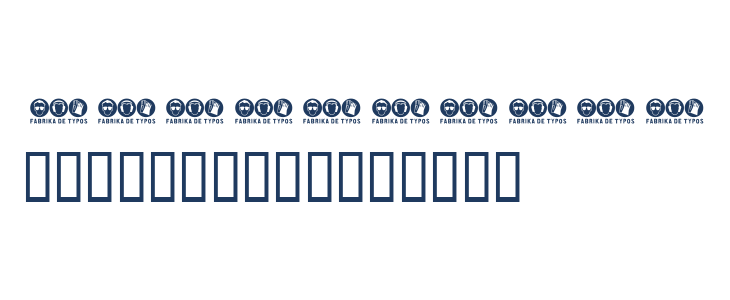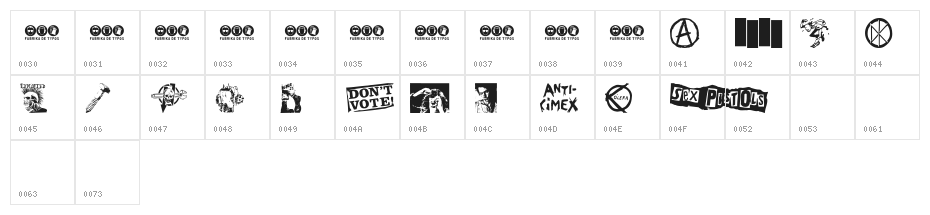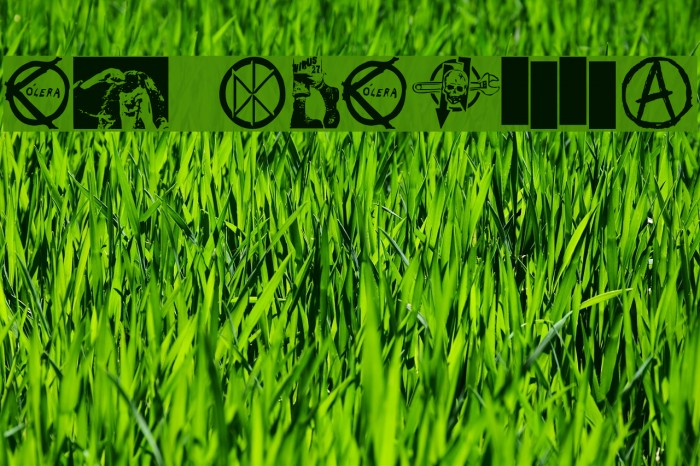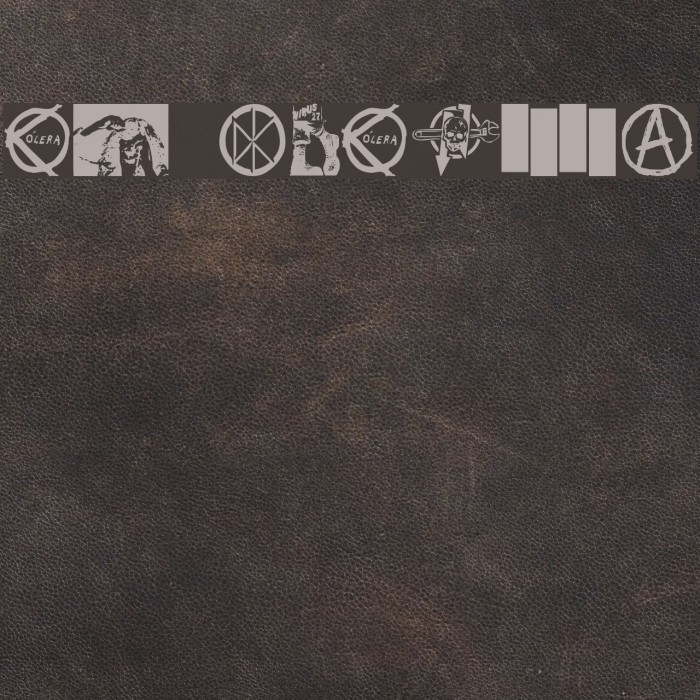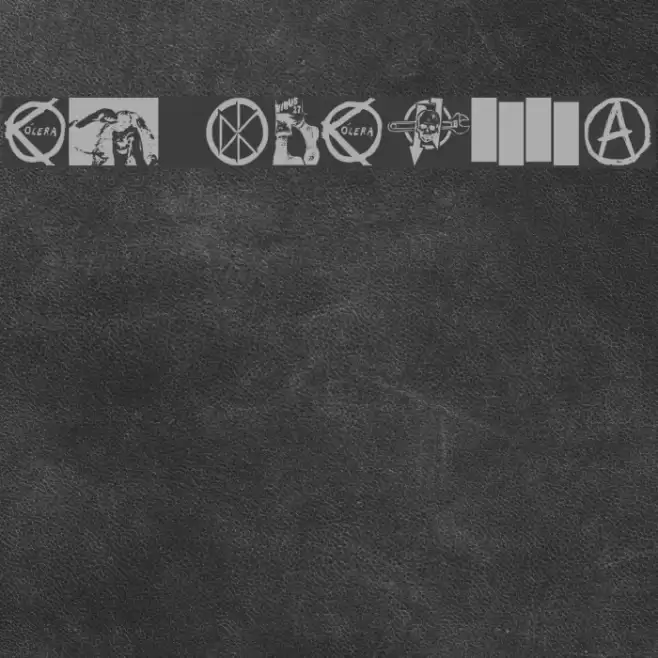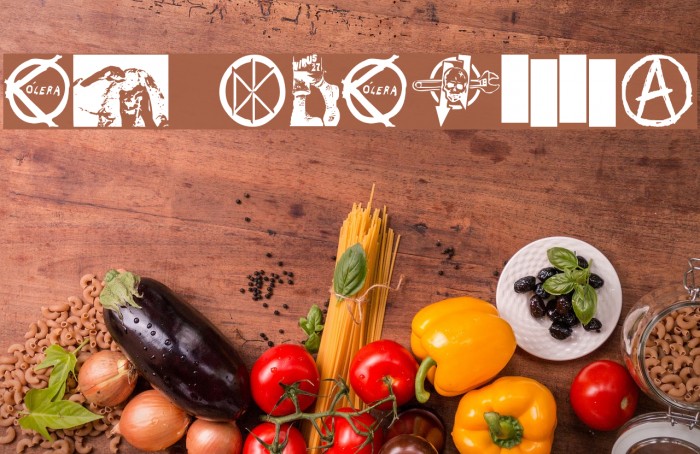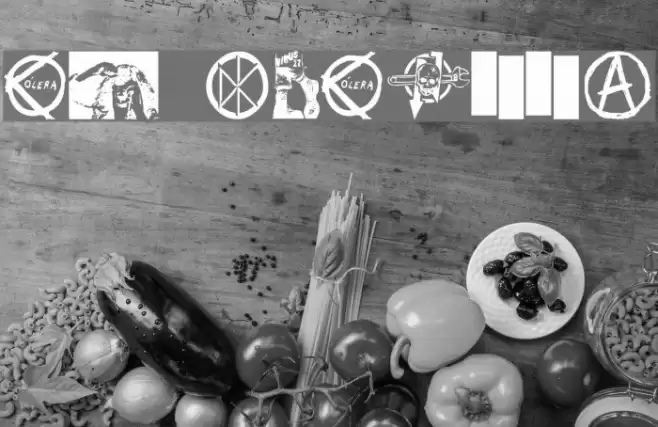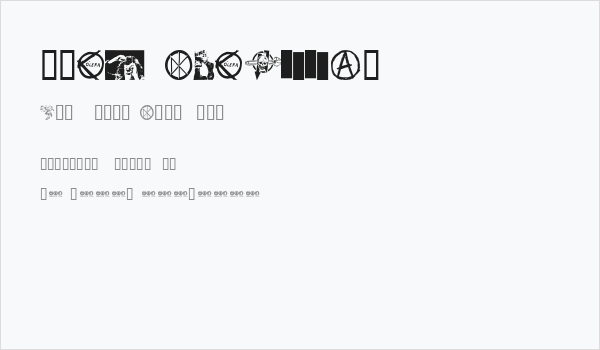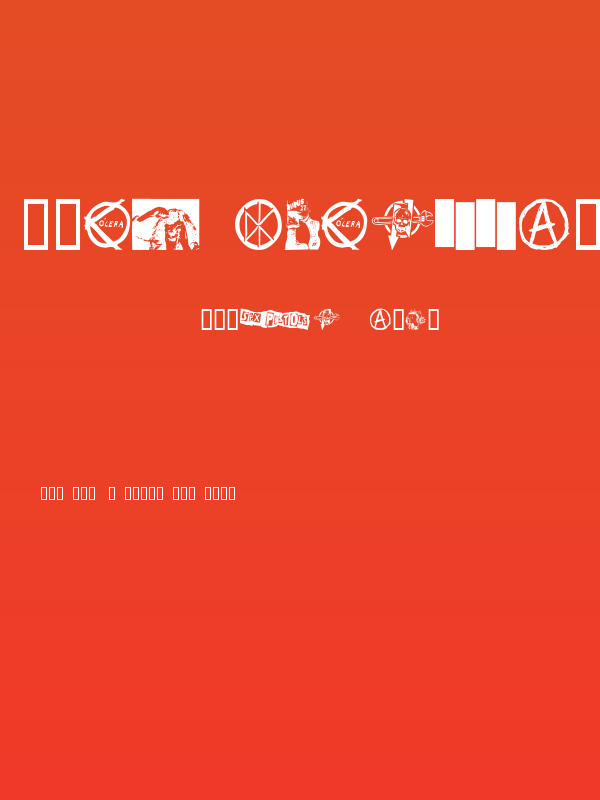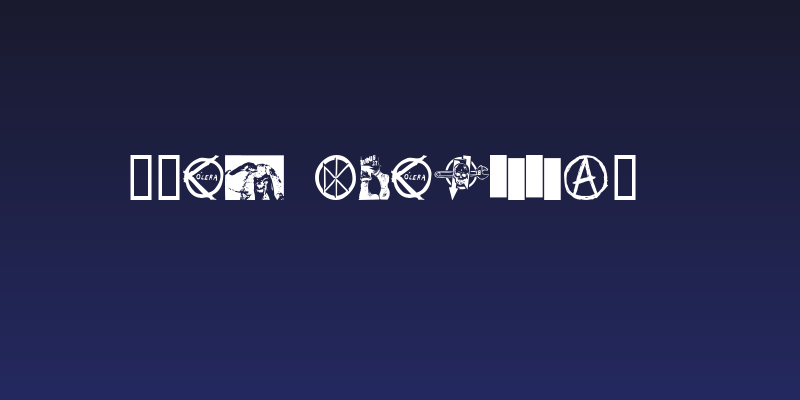
PUNK DINGBATS Font
PUNK DINGBATS Description
This collection of symbols and graphics embodies the rebellious and edgy spirit of punk culture. Featuring iconic imagery such as anarchy symbols, peace signs, and references to punk bands, it captures the raw and unpolished aesthetic typical of the punk movement. The designs are bold and striking, often using high contrast and rough, hand-drawn styles to convey a sense of urgency and defiance. These elements are perfect for projects that aim to evoke a sense of rebellion, counterculture, or alternative lifestyle.
| Use Case | Logos, Posters, Merchandise |
| Proposed Projects | Ideal for band posters, album covers, zines, and alternative fashion branding. |